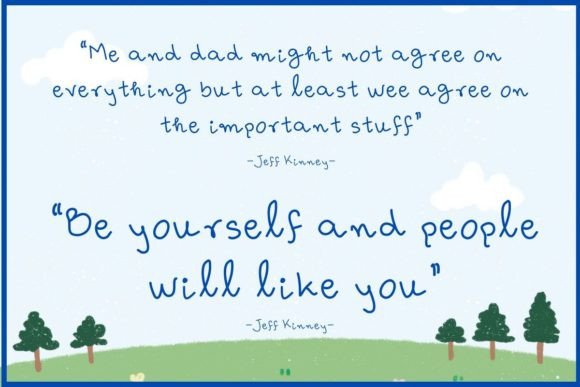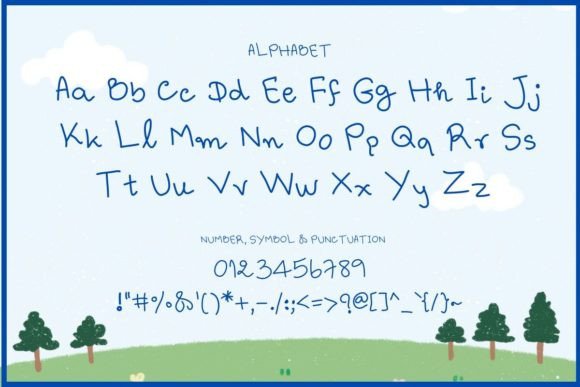
Introduction to Pana Font
Immerse yourself in the enchanting world of “PANA”, a font that transforms ordinary text into a delightful canvas of emotions.
Inspired by the whimsical “Diary of a Wimpy Kid”, PANA is meticulously hand-crafted to echo the vibrant energy of a spirited youngster With its varied expressions – from mischievous delight to rebellious indifference – PANA adds a fun twist to any narrative.